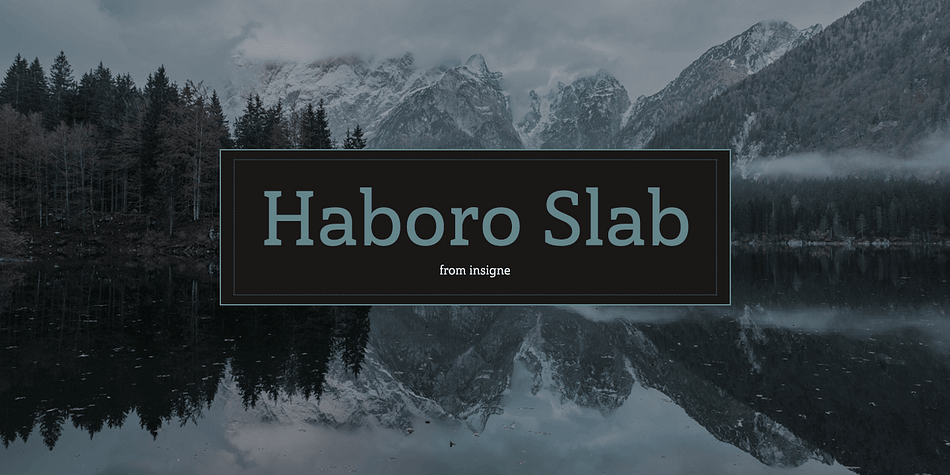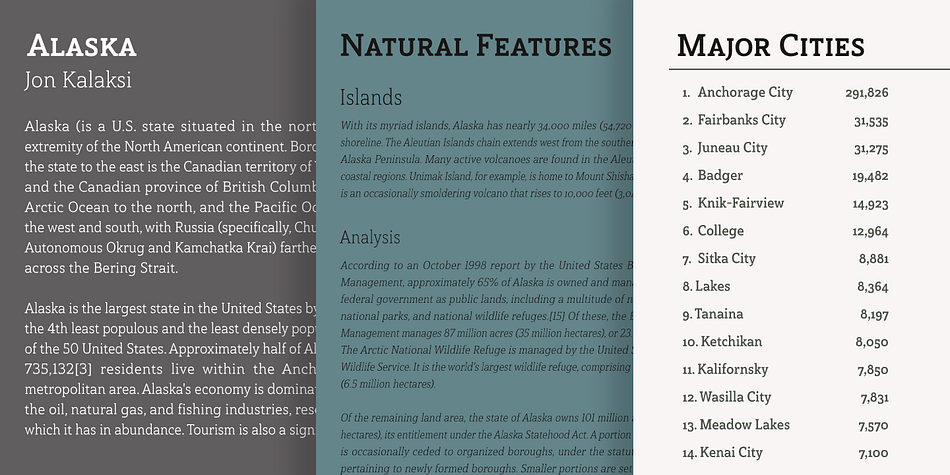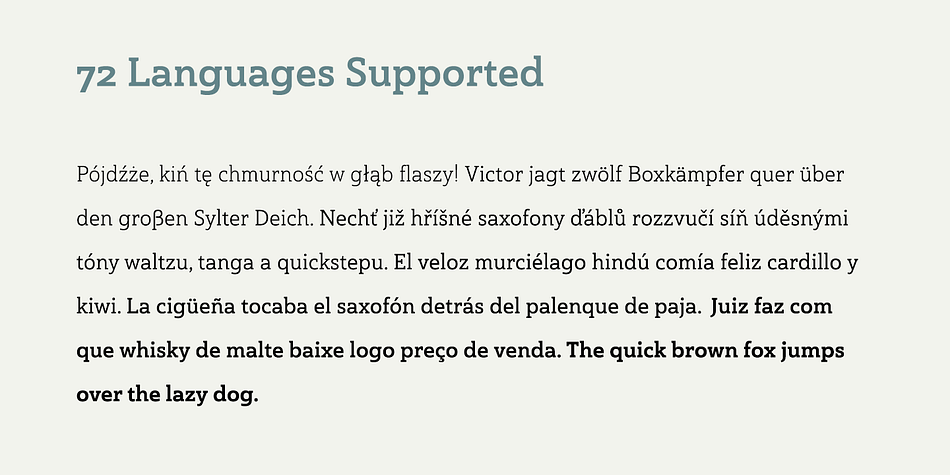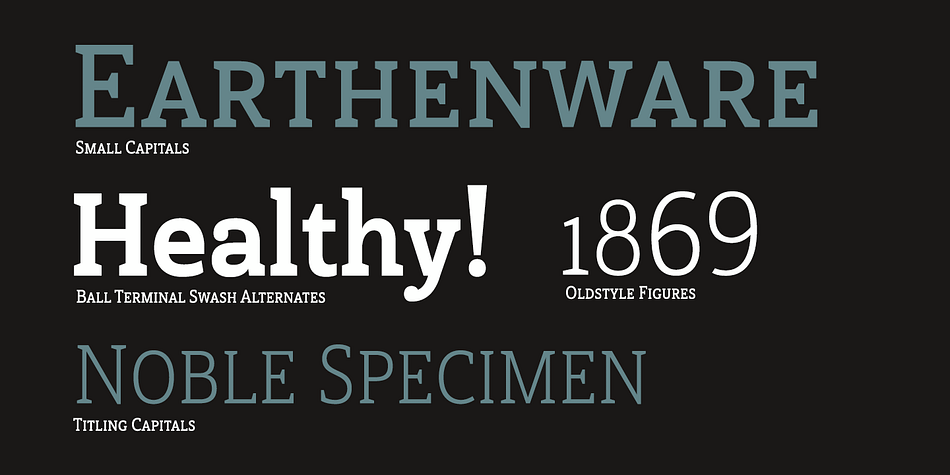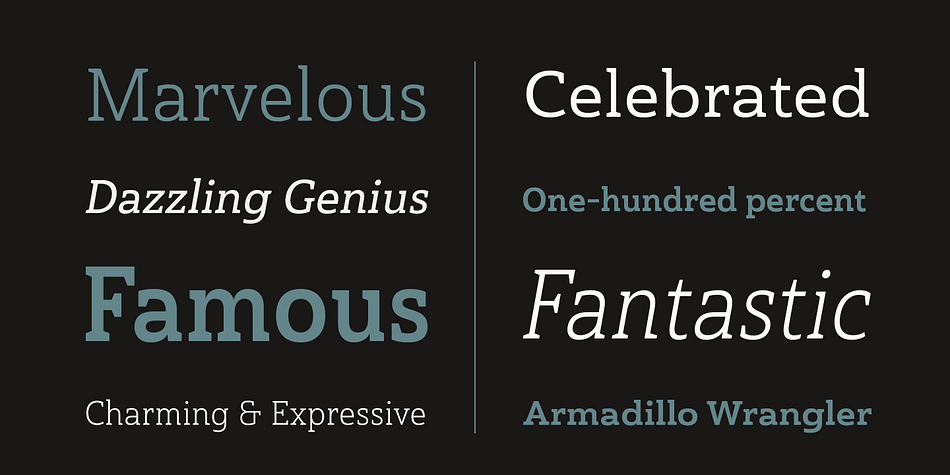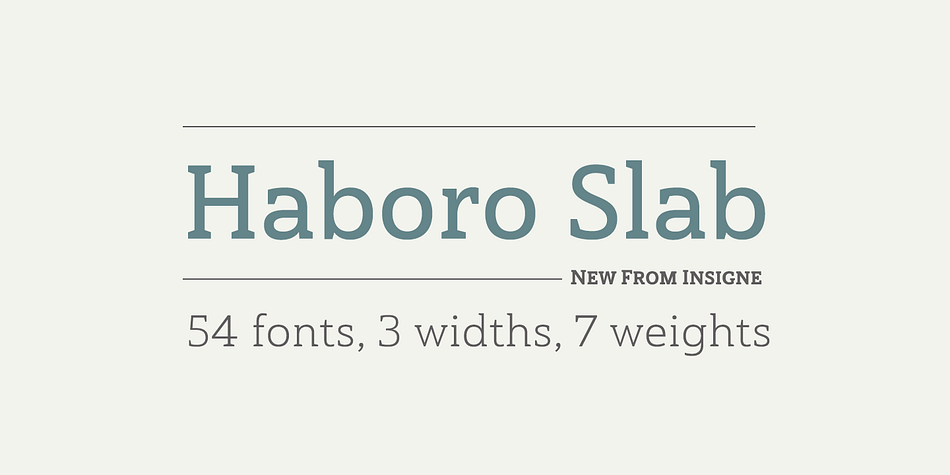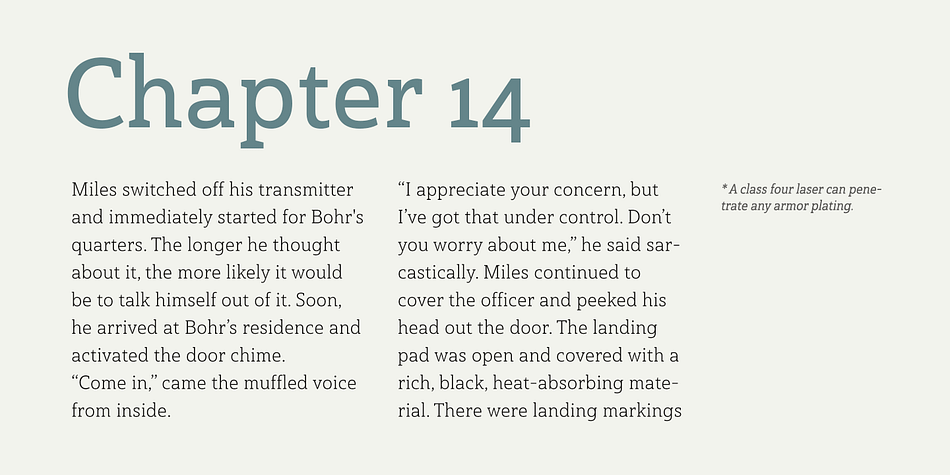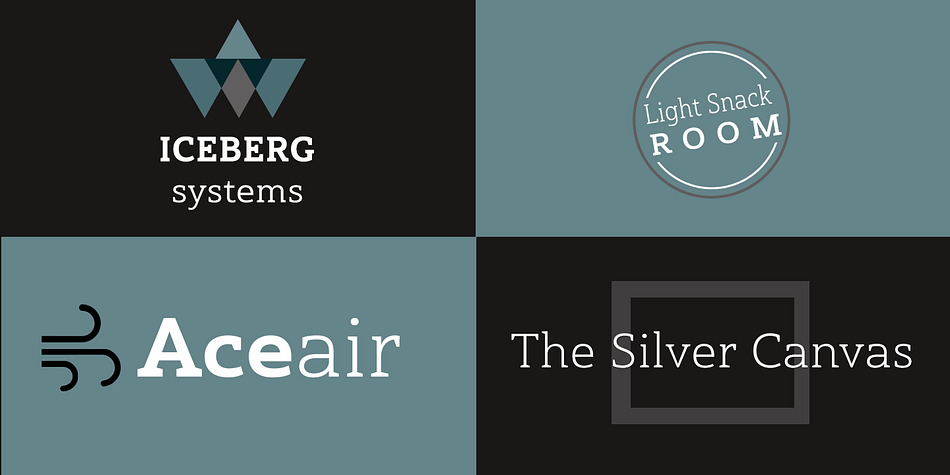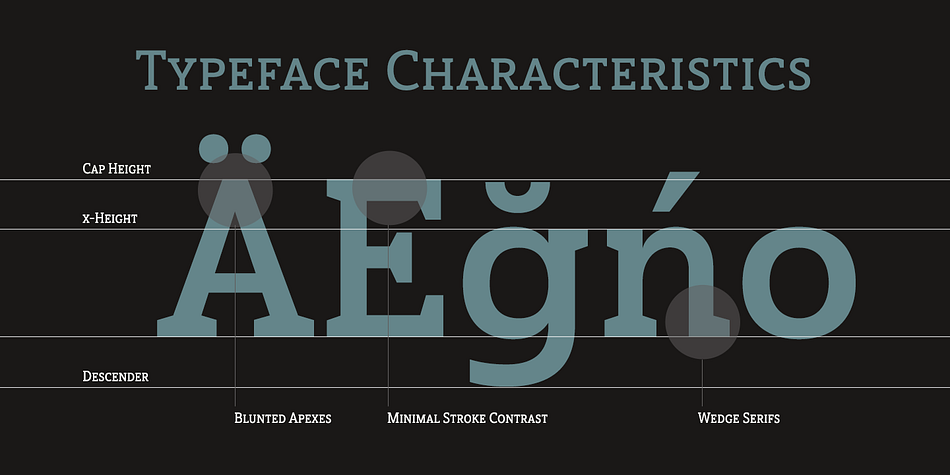
Haboro Slab is a slab serif font family. This typeface has forty-two styles and was published by Insigne Design.
Haboro Slab. It’s a nose-to-the-grindstone kind of font like the first of its family. This slab serif pushes through the clutter powerfully in editorial and corporate work such as business websites and software.
The Haboro hyperfamily as a whole is known for its ability to make the work clear and simple, even with the fonts’ advanced angle—and Slab is no change here. Consistent with Haboro, too, the simplified geometric features of the slab face just make sense, no matter where you use it. Its timeless wedge-molded serifs give this family the formula it needs to function flexibly in jobs from fashion to packaging.
Enhance your output with the font’s wide range of ligatures and alternates, including OpenType alternates. Use Haboro Slab’s large pair of solution glyphs and various other OpenType specifics, too, to give your message the clarity it deserves. Even more, it couples well with the sophisticated didone of the Haboro hyperfamily to further expand your capabilities.
Haboro Slab has every quality you need for successful lettering. Use this modification on a classy tradition to mold and shape your next layout, whether website, iPhone app, advertising, or newspaper. There is no work Haboro Slab won’t power through.